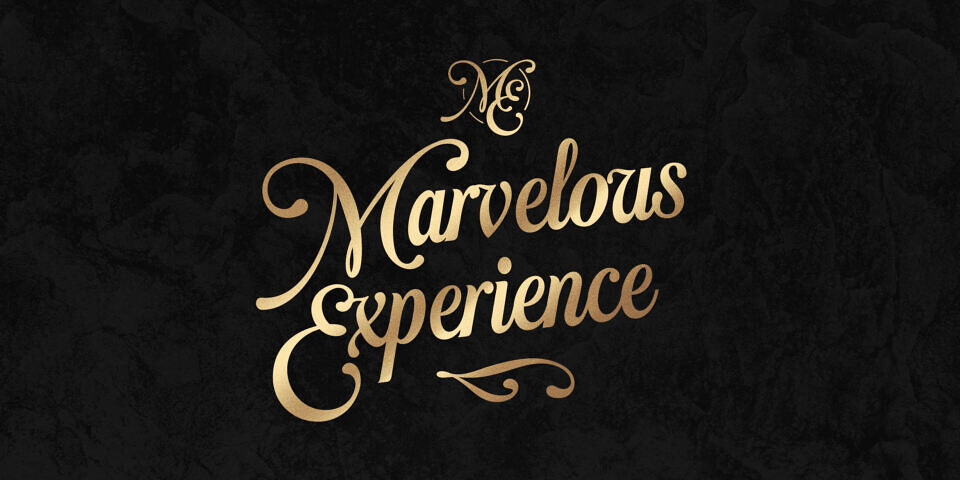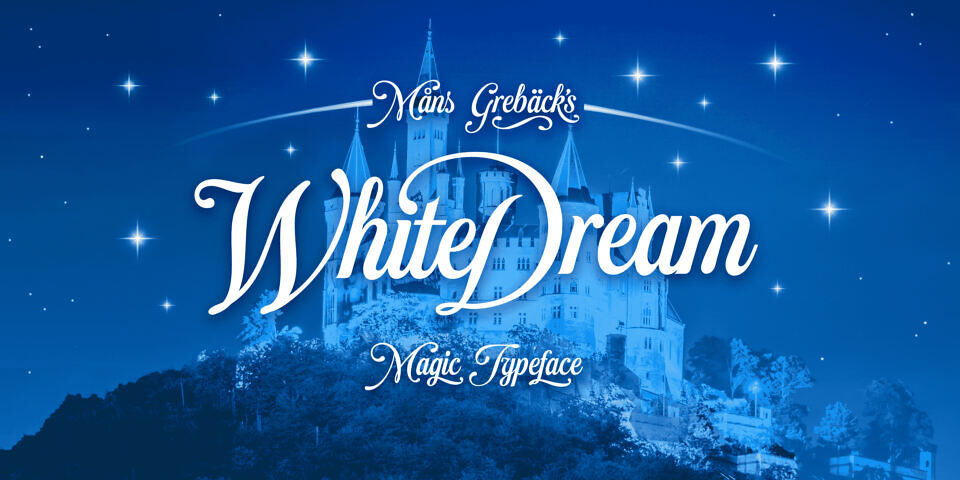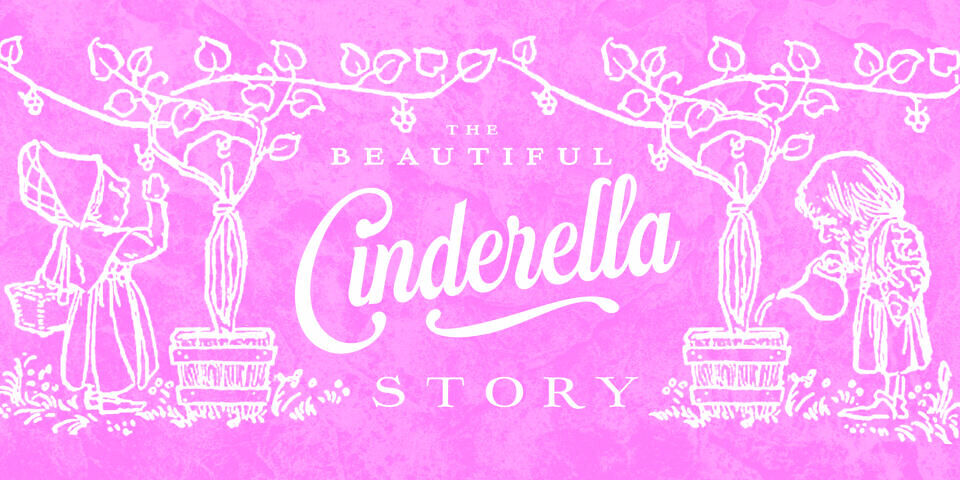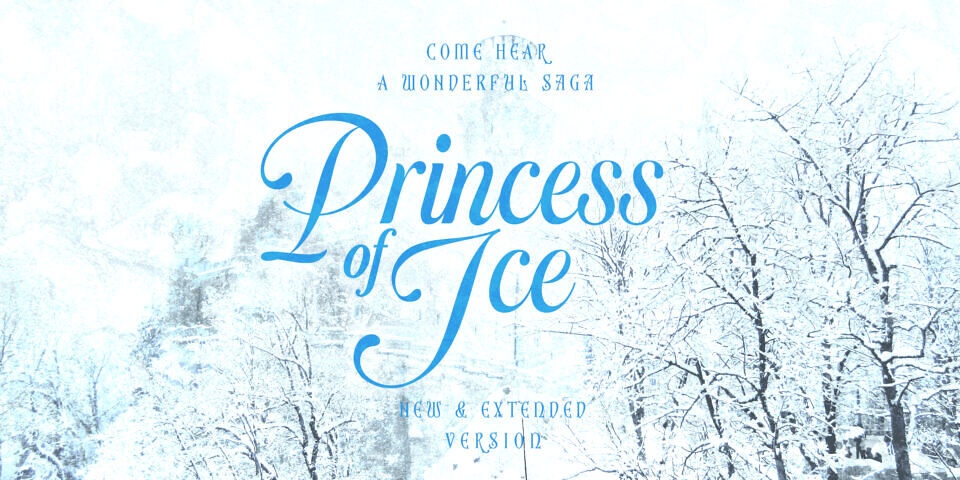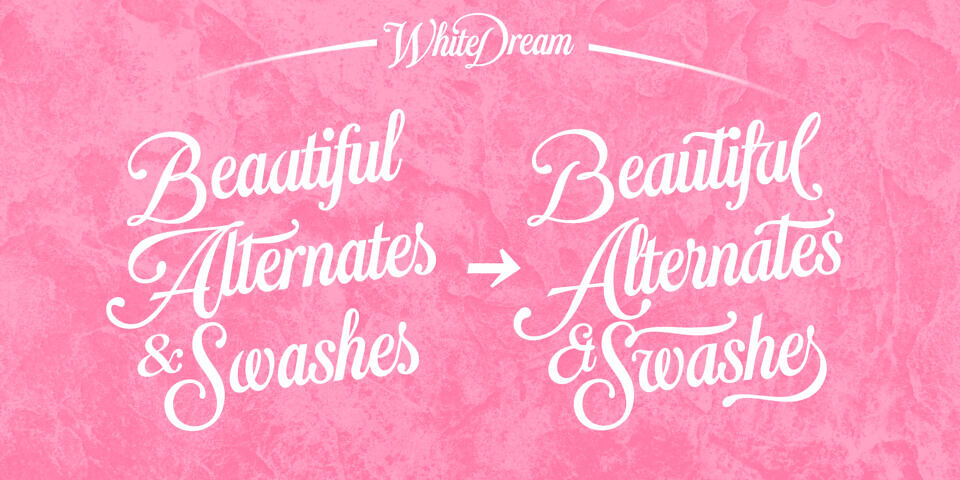
White Dream Font
White Dream is a clean, swashy, and beautiful script typeface, reminiscent of a fairy tale setting. This decorative logotype font consists of four styles: Regular, Thin, and Swash versions. The font is built with advanced OpenType functionality and has a guaranteed top-notch quality, containing stylistic and contextual alternates, ligatures, and more features; all to give you full control and customizability.
It has extensive lingual support, covering all Latin-based languages, from Northern Europe to South Africa, from America to South-East Asia. It contains all characters and symbols you’ll ever need, including all punctuation and numbers.